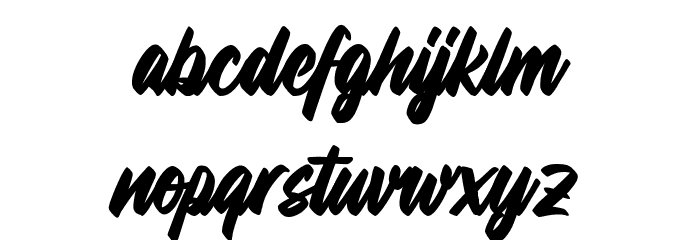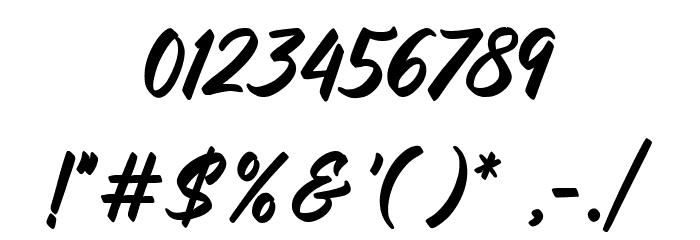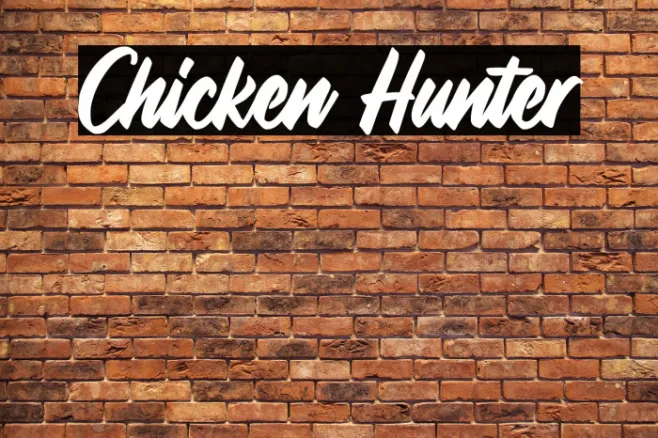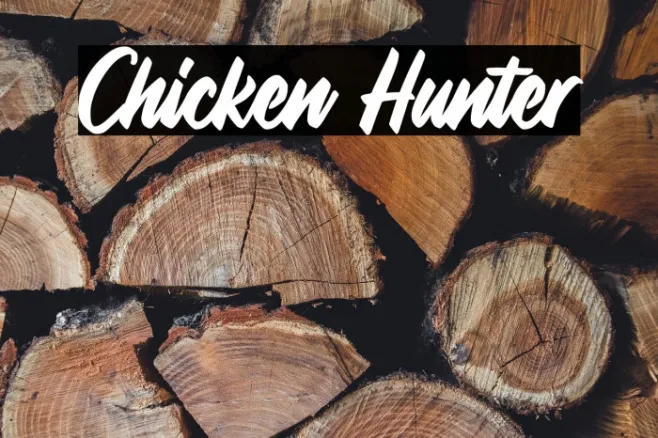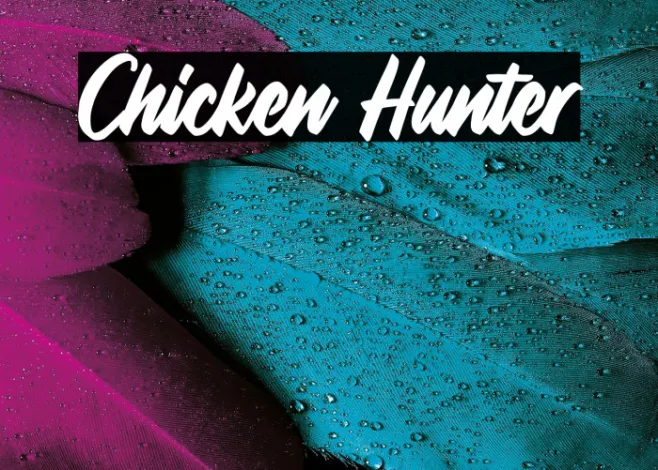
Chicken Hunter Font
This font features a dynamic and expressive script style, characterized by its fluid, cursive strokes and a sense of motion. The uppercase letters are bold and slightly slanted, giving a sense of elegance and flair. The lowercase letters maintain a consistent flow, with smooth connections between characters, enhancing readability while preserving the artistic touch. The numerals and special characters are crafted with the same attention to detail, ensuring a cohesive look across all elements. This font's bold presence makes it suitable for impactful designs that require a personal and creative touch.
A bold, cursive script font with dynamic strokes and elegant flair.
- Proposed Projects: Ideal for branding, invitations, greeting cards, and creative posters.
- Use Case: Logos, Headlines, Invitations